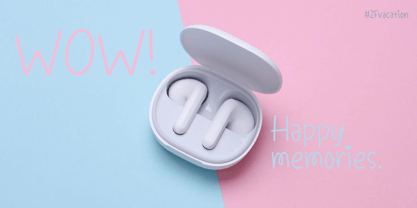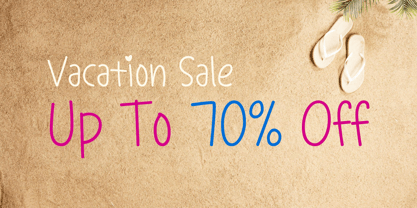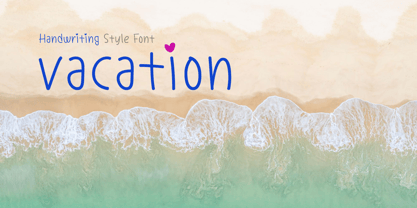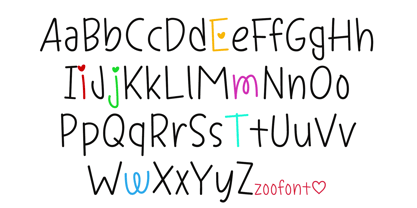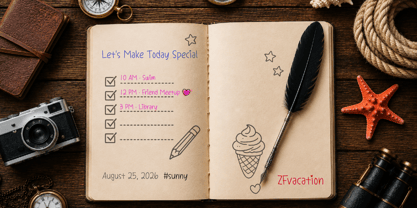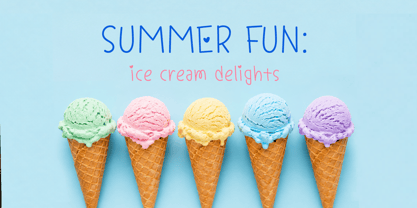
ZFvacation
by ZooFont
[ZF Vacation] Like an Ever-Exciting Journey
ZF Vacation is a delightful handwritten font featuring smooth, even strokes.
Its light and refreshing aesthetic offers comfortable readability while exuding a cheerful vibe that brightens every moment.
Escape your daily routine and set off on a carefree journey before the ice cream melts.
Let the gentle breeze guide you to an emerald-blue sea, where every shared moment feels like a vacation.
Perfect for branding, web design, and editorial projects, this font captures the essence of leisure and joy, making it an excellent choice for a wide range of creative projects.